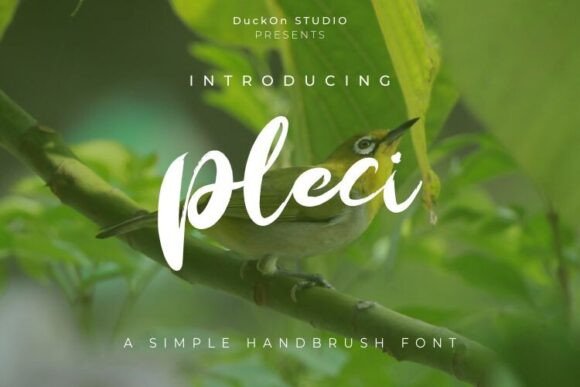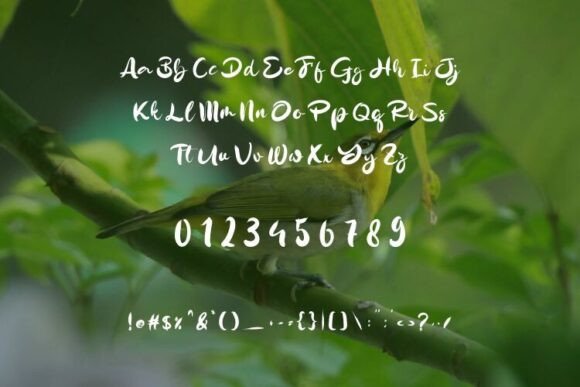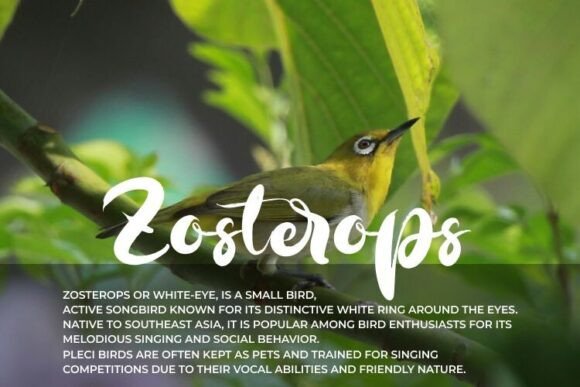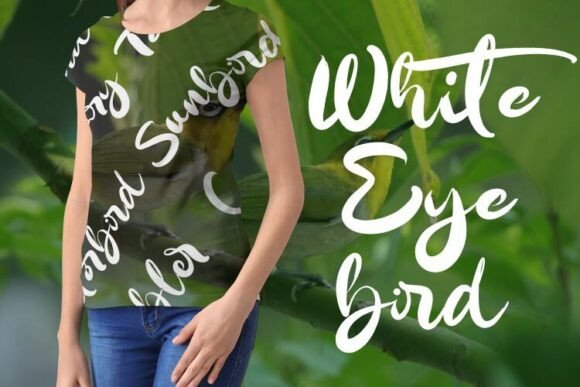
Pleci Font: A Bold Handbrush Font for Nature-Inspired Logo Design
About the Pleci Font
Meet Pleci Font, a stunning font that brings a touch of elegance and professionalism to any design. Pleci – A Bold Handbrush Font Inspired by Nature’s Energy
Pleci is a spirited handbrush font named after the “Pleci” bird — a small, lively songbird known for its vibrant personality and constant movement. Just like its namesake, this font is energetic, expressive, and full of life.
Crafted with authentic brush strokes, Pleci delivers a bold yet natural feel, making it ideal for posters, music covers, branding, apparel, and anything that needs a touch of wild creativity. Its textured edges and dynamic flow bring a handmade, rebellious charm to your design work.
Pleci Font Usage Examples
Pleci Font Example